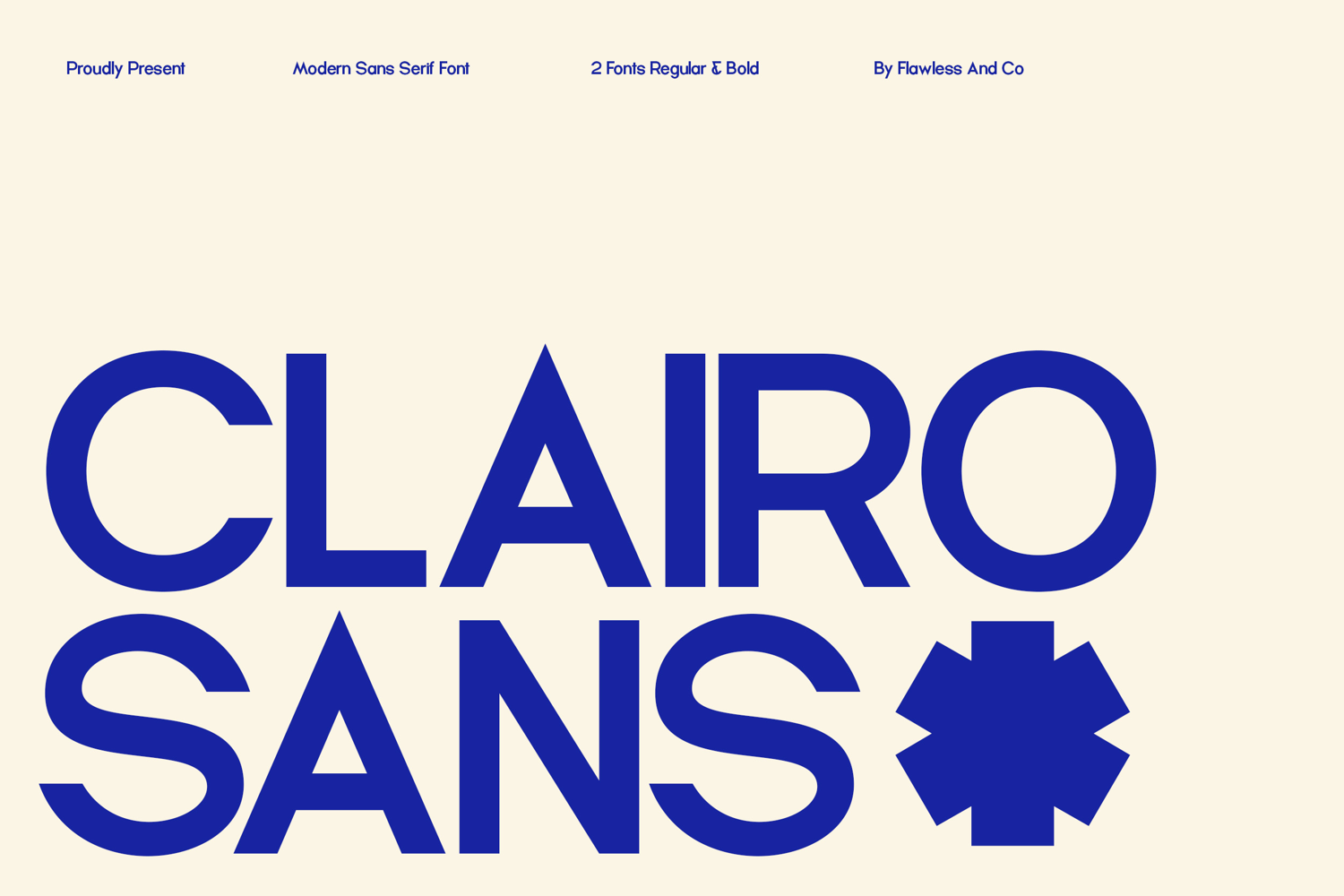
Clairo Sans
Clairo Sans - Modern Sans Serif Font
Clairo Sans is a clean and modern sans serif font designed to deliver clarity, balance, and versatility. With its bold structure and minimal aesthetic, Clairo Sans works perfectly for contemporary designs that require a strong yet approachable visual presence. It comes with Regular and Bold styles, making it flexible for various design needs.
Who Should Use Clairo Sans?
Clairo Sans is ideal for graphic designers, brand designers, and creatives who need a modern and functional typeface. It’s perfect for those working on branding systems, digital products, or clean visual identities that demand readability and style at the same time.
Why Choose Clairo Sans for Brand and Logo Projects?
Clairo Sans offers a modern look with strong letterforms that make logos stand out clearly and confidently. Its simplicity ensures your brand remains timeless, while the bold option adds emphasis where needed—perfect for scalable and professional brand identities.